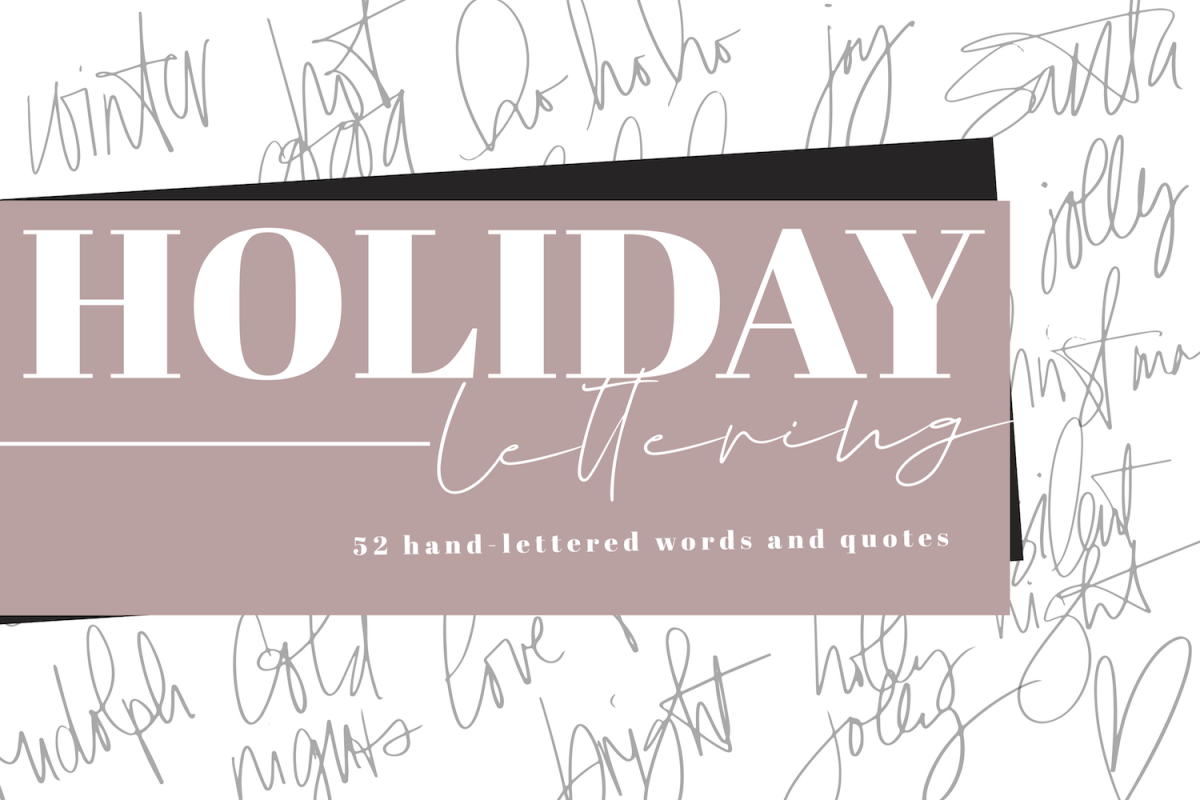
Christmas Words and Phrases - Overlay Font
The Christmas Phrases font includes 52 holiday words and phrases.
Each phrase has been hand-lettered with a brush pen.
The brush pen gives the doodles a realistic and unique appearance.
This font is most suitable for decoration.
It is perfect for photo overlays, holiday cards, instagram quotes, gift tags, planners and more!